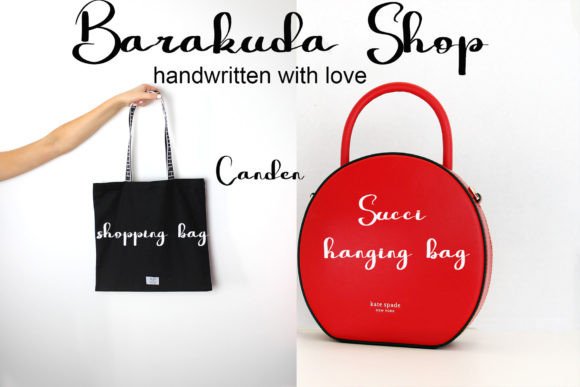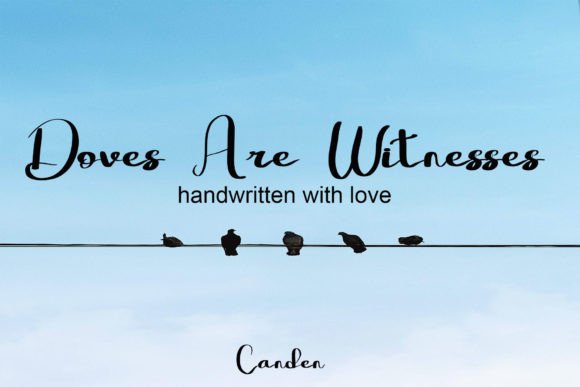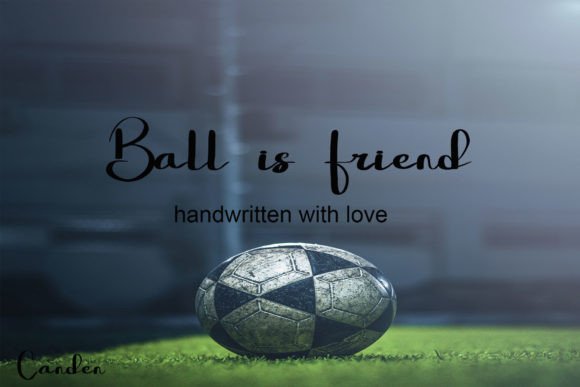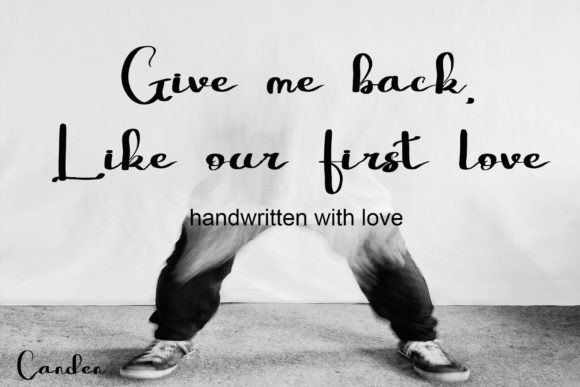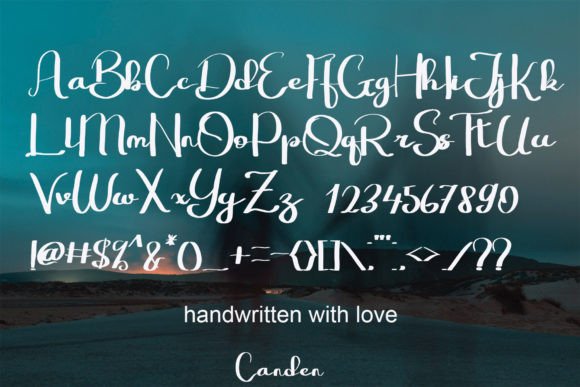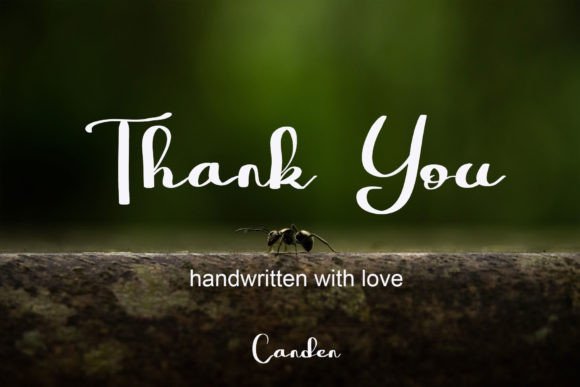
Barakuda Font
About Barakuda Font
“Barakuda” is more than just a font; it’s a handwritten typeface created with a pen tablet, embodying a simple and natural appearance. This versatile font is well-suited for use on websites and in advertising, including product ads and various promotional materials. Despite its simplicity, “Barakuda” exudes a cool and stylish vibe, making it an excellent choice for a range of design applications.
The handwritten quality of “Barakuda” brings an authentic and organic feel to the typeface. The characters reflect the natural flow of handwriting, adding a personal touch to your digital or print designs. This lends itself well to projects that require a connection with the audience or a more relaxed and approachable aesthetic.
“Barakuda” seamlessly integrates into different design contexts. Whether utilized on a website or in various advertising campaigns, its simplicity enhances clarity, ensuring that your message is communicated effectively. The font’s versatility makes it suitable for a variety of applications, allowing it to adapt to the unique needs of each project.
Despite its simplicity, “Barakuda” manages to convey a sense of coolness and style. The handcrafted elements contribute to its uniqueness, making it stand out in design compositions. Imagine it enhancing the visual appeal of a sleek website or elevating the aesthetics of product advertisements with its cool and stylish presence.
In summary, “Barakuda” is not just a font; it’s a handcrafted tool that brings simplicity, authenticity, and style to your designs. Let it be the choice for creating a natural and cool vibe in your websites or advertising projects. With “Barakuda,” simplicity becomes a strength, adding a touch of stylish charm to your visual communication.